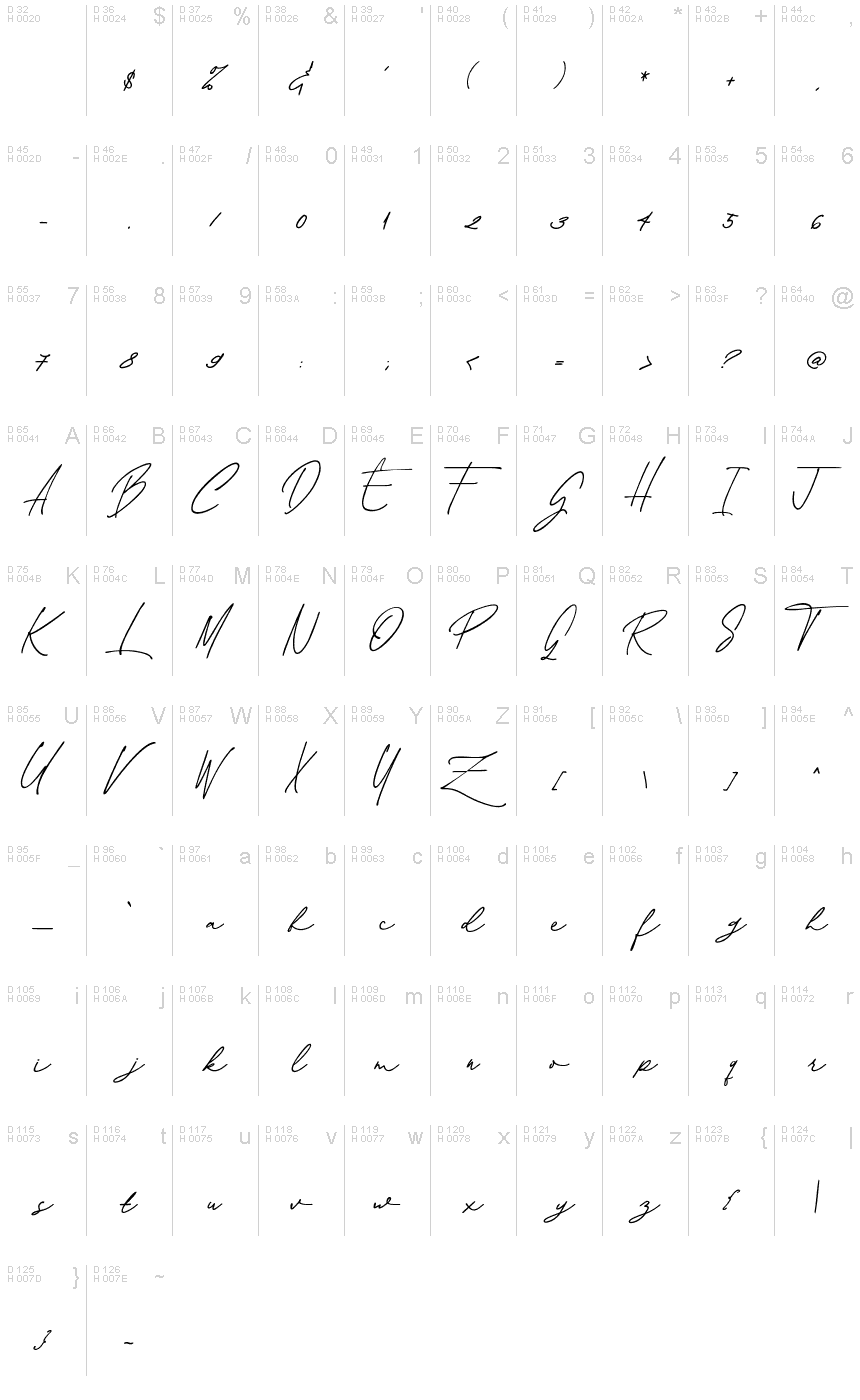
KosakattaDEMO-Signature
Kosakatta is a signature font originally made by hand by @endita from @telllu_craft. Contains 405 glyphs and 10920 binary stored kerning pairs (on PRO Version).